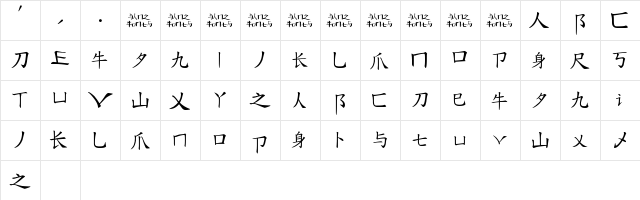
Message from the East Regular
| Designer | Sanz d'Cloudz |
Design Context for Message from the East Typeface
Message from the East is a composed and adaptable typeface that performs quietly and consistently across a wide range of design contexts.